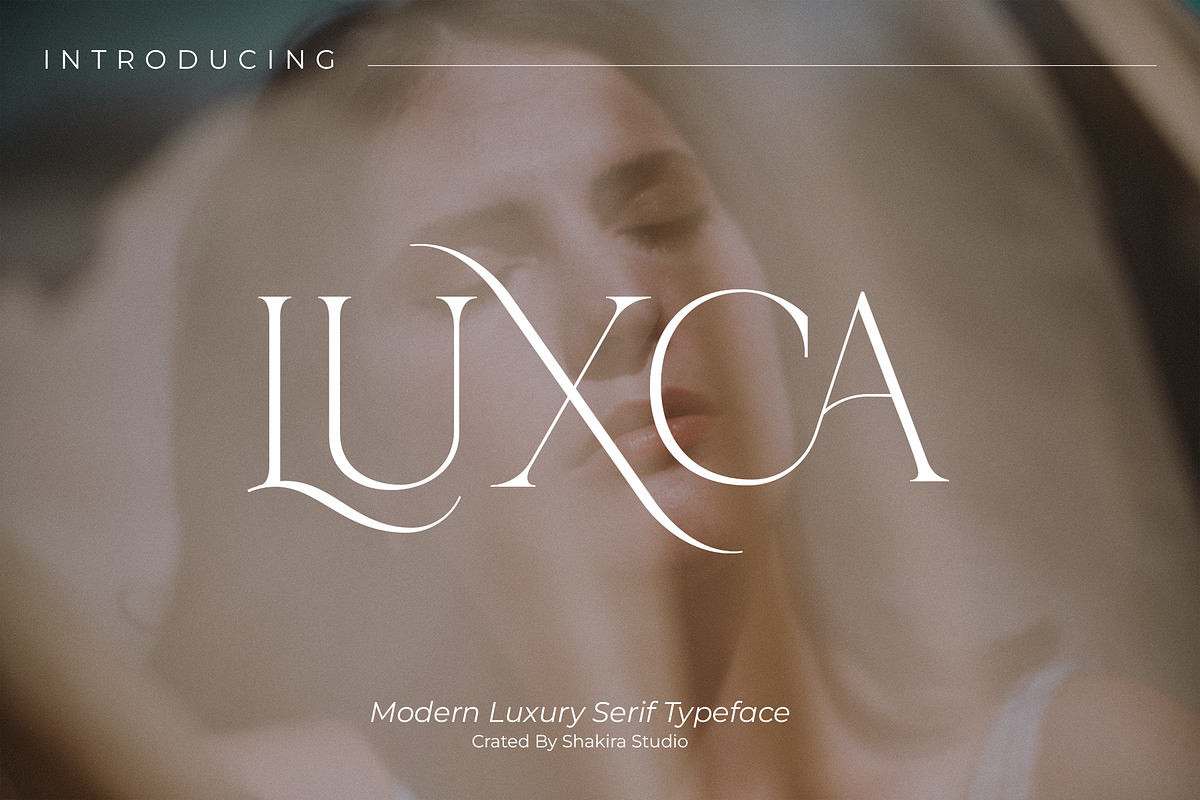
Luxca - Modern Luxury Serif Free Download
Luxca - Modern Luxury Serif Font Free Download
The Luxca - Modern Luxury Serif Font Free Download is an elegant and sophisticated typeface that combines the timeless appeal of serif fonts with a modern, luxurious twist. Perfect for high-end branding, fashion design, editorial layouts, and upscale product packaging, this font adds a refined touch to any project.
With its sharp, clean lines and high contrast between thick and thin strokes, Luxca exudes class and sophistication. It includes uppercase and lowercase letters, numbers, punctuation, and multilingual support, making it versatile and ideal for both print and digital applications.